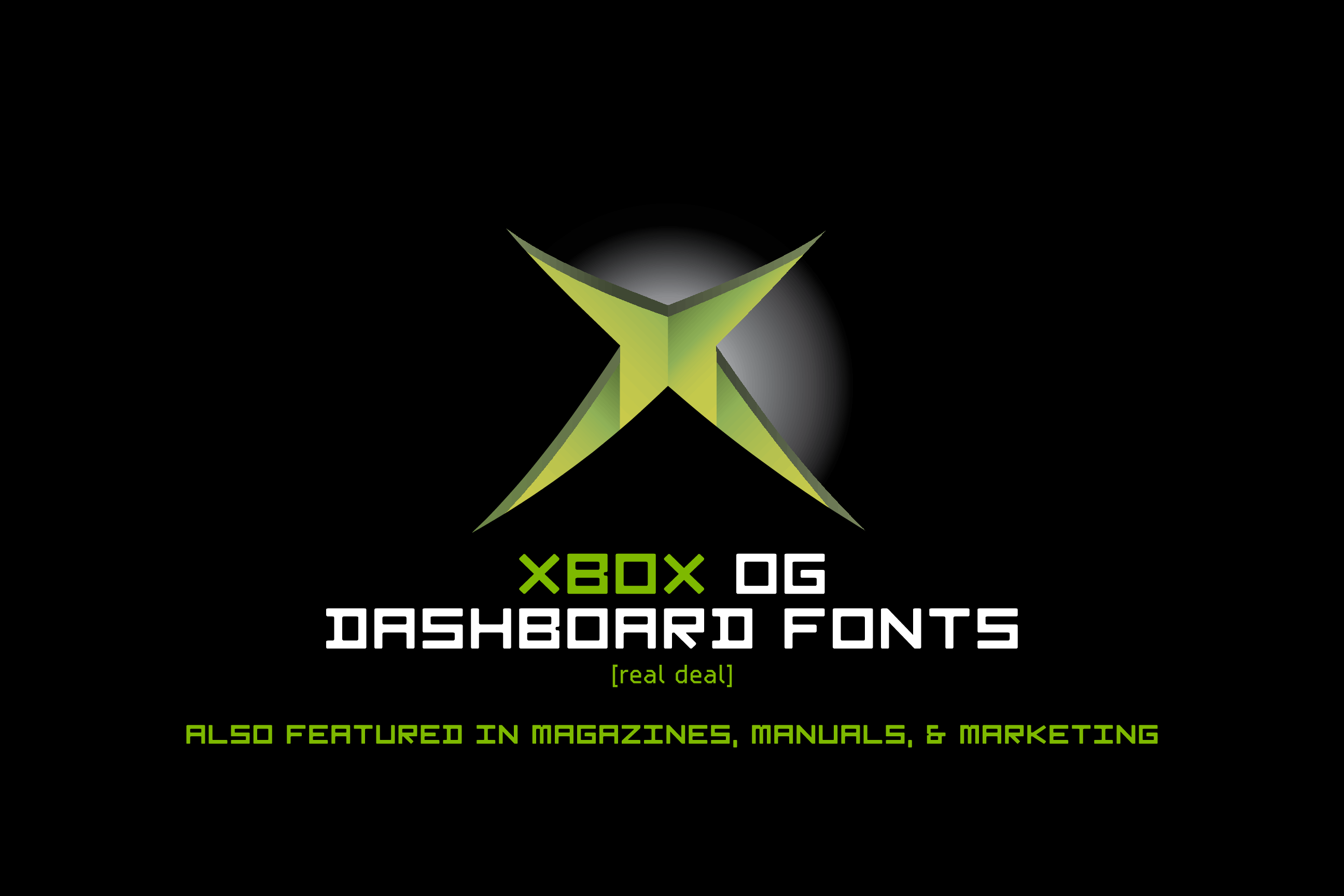
The reason this is a demo is because there's no embedded XBox Book font anywhere. I tried.Update 6/4/2018
XBox Book Bold has some more glyphs from the archived XBox manuals and magazines.
Some XBox Book fonts updated with more glyphs.
On the bold font, I (re)traced the glyphs.
Updated the regular font with remade glyphs.
After three years of finding the real deal fonts for Xbox and Xbox Book, it finally paid off - ...well, except for the bold Xbox Book since there's not completely a real deal version of it yet - and there probably won't be unless stated otherwise.
Found the high-quality version of XBox Book Regular.
$ and £ updated in XBox Book Bold.
After 5 solid years of searching for a high-quality and flawless XBox font family, I finally obtained them all. Enjoy.